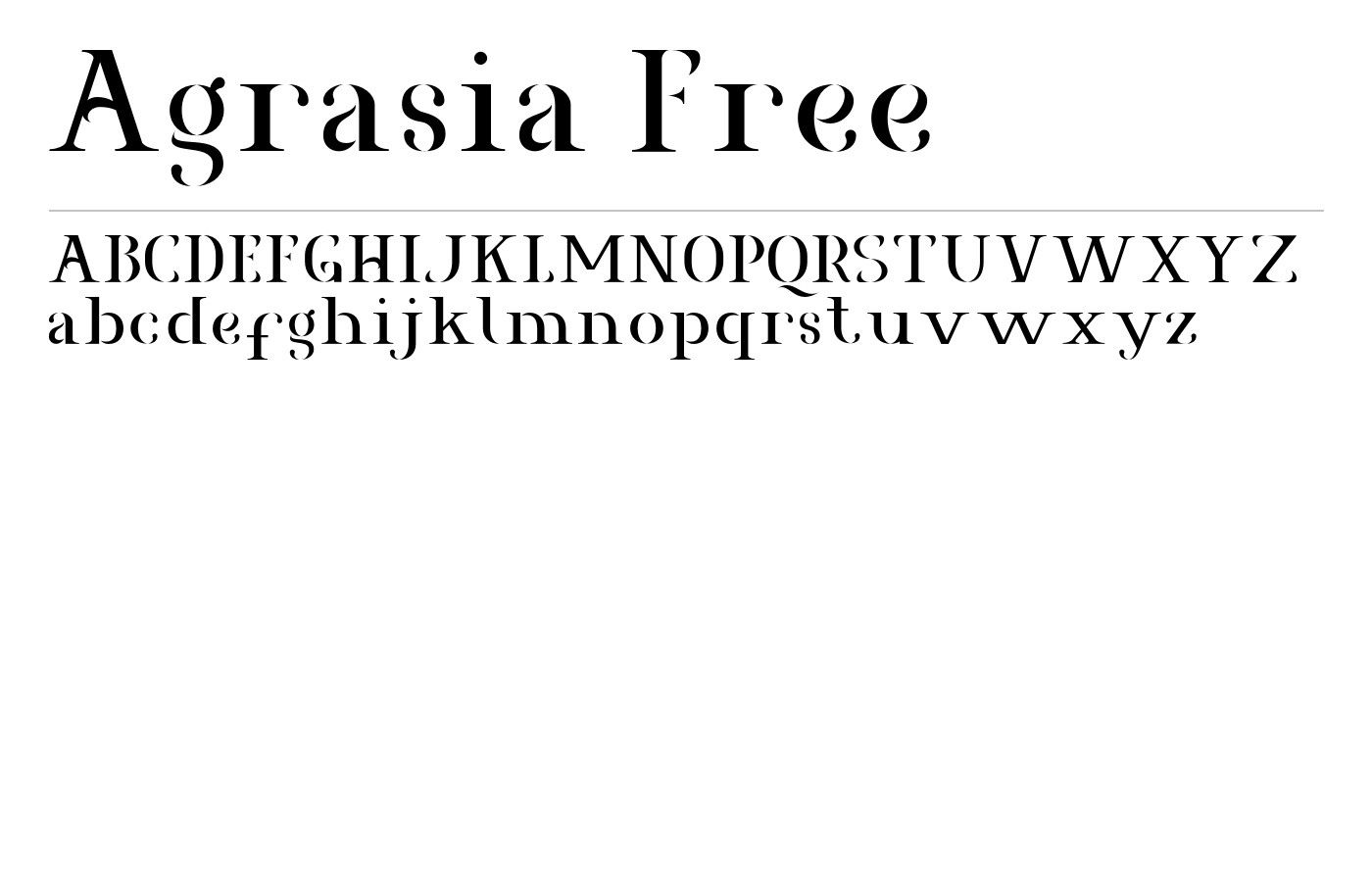
Agrasia Free Font is a modern serif with high contrast between thick and thin strokes, featuring elegant, sharp serifs and distinctively stylized letterforms. Its condensed width and moderate x-height give it a sophisticated, refined appearance that works beautifully for luxury branding, editorial headlines, and fashion-focused designs. This font stands out with its unique character details, making it ideal for projects that want to convey elegance and a contemporary edge.
Agrasia Free Font
About Agrasia Free Font